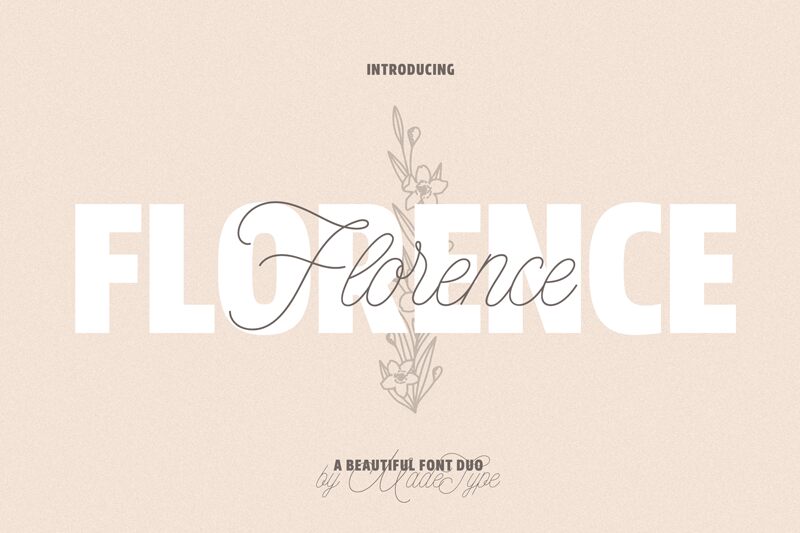
MADE Florence is a beautiful font duo.
The Florence will perfect for many project: design, fashion, magazines, logo, branding, photography, wedding invitations, quotes, blog header, poster, advertisements, etc.
MADE Florence Sans